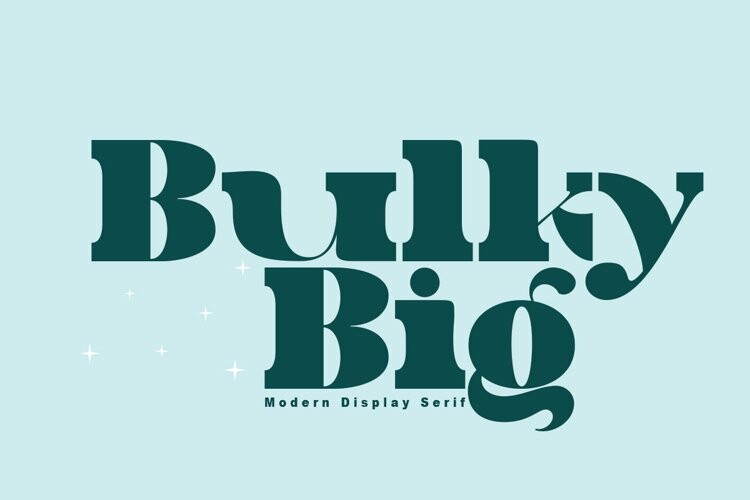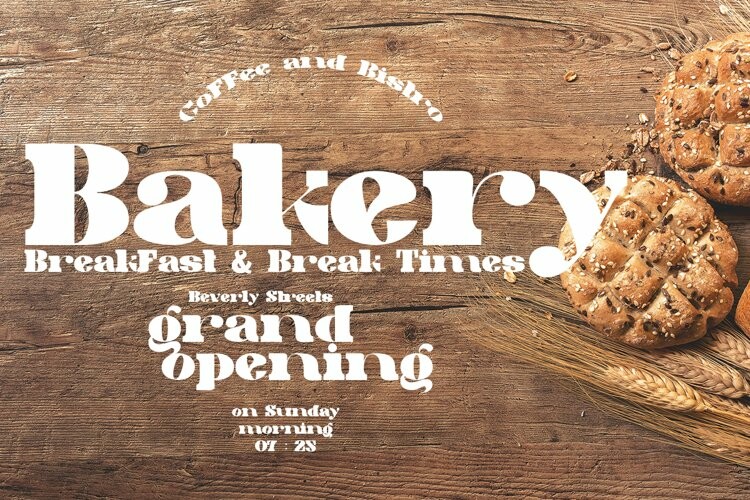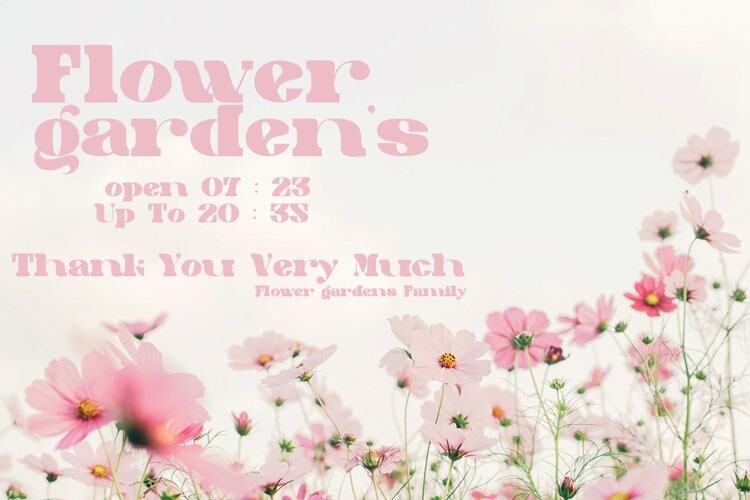
Bulky Big Font
Bulky Big FontBulky Big this is a font that came from its predecessor, but it comes with a fresher, thicker and slap shape, this font also gives a special, challenging and bold impression, if it is made into an elegant cover and will display an extraordinary luxurious and professional impression, make this font for all your desaign projects